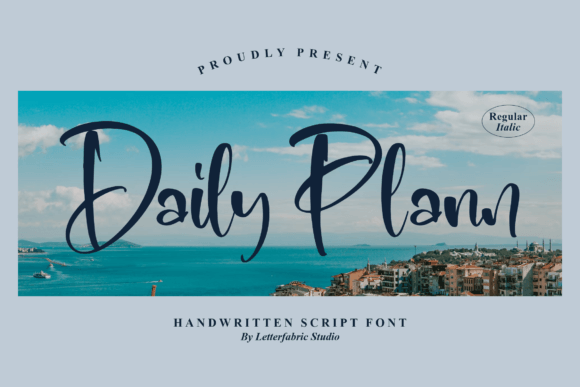
Unleash the Allure of Daily Plann: The Exquisite Handwritten Font That Captures Hearts
In a world clamoring for authenticity and charm, Daily Plann emerges as a captivating handwritten font, a symphony of elegance that dances across your designs, leaving an indelible mark of creativity and sophistication. Crafted by Letterfabric, a visionary foundry renowned for its artistic brilliance, Daily Plann is not merely a font; it's an experience, an expression of your unique style.
With its enchanting script, Daily Plann evokes a sense of timeless beauty, reminiscent of handwritten letters penned with love and care. Its graceful curves and expressive strokes dance harmoniously, creating an aesthetic that is both captivating and inviting. Whether you're a seasoned designer or just starting your creative journey, Daily Plann is your muse, a font that ignites your imagination and transforms your designs into captivating masterpieces.
From elegant wedding invitations to heartfelt greeting cards, Daily Plann adds a touch of warmth and individuality to your creations. Its versatility extends to logos, branding projects, and product packaging, where it leaves an indelible mark of sophistication and charm. Unleash your creativity with Daily Plann, and let your designs bloom with a unique personality that resonates with your audience.
Daily Plann is not just a font; it's a portal to a world of creative possibilities. Its beauty lies in its ability to weave a narrative, to evoke emotions, and to connect with your audience on a profound level. Whether you're designing a business card that exudes professionalism or a poster that radiates playfulness, Daily Plann has the power to transform your vision into a tangible reality.
So, embrace the allure of Daily Plann, and let its exquisite strokes take you on a creative journey like no other. With its enchanting script and versatility, Daily Plann is your gateway to a world of beauty and boundless possibilities.